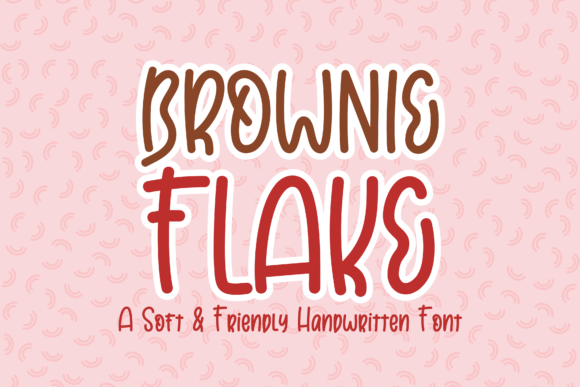
Brownie Flake Font: The Perfect Handwritten Font for Your Creative Projects
Are you looking for a friendly and versatile handwritten font to elevate your creative projects? Look no further than Brownie Flake Font! This charming font is perfect for social media, Goodnotes, digital planning, and more. In this article, we’ll dive into the features and benefits of Brownie Flake Font and explore how you can use it to take your branding, crafts, invitations, and other creative projects to the next level.
What is Brownie Flake Font?
BrownieFlake is a friendly handwritten font that’s designed to add a personal touch to your digital and print projects. It’s a carefully crafted font that features uppercase and lowercase letters, numbers, basic punctuation, and international characters. This makes it an excellent choice for a wide range of creative applications, from social media graphics and digital planning to branding, crafts, and invitations.
Key Features of Brownie Flake Font
- Handwritten style: Brownie Flake Font has a warm and inviting handwritten style that’s perfect for creating a personal connection with your audience.
- Uppercase and lowercase letters: The font includes both uppercase and lowercase letters, making it easy to create professional-looking text.
- Numbers and punctuation: The font also includes numbers, basic punctuation, and international characters, giving you everything you need to create comprehensive text.
- Versatile: Brownie Flake Font is highly versatile and can be used for a wide range of creative projects, from social media graphics to digital planning and more.
Benefits of Using Brownie Flake Font
So why choose Brownie Flake Font for your creative projects? Here are just a few benefits of using this friendly handwritten font:
- Adds a personal touch: Brownie Flake Font’s handwritten style adds a warm and personal touch to your projects, helping you connect with your audience.
- Easy to read: The font is highly legible, making it easy for your audience to read and understand your text.
- Versatile: Brownie Flake Font can be used for a wide range of creative projects, from social media graphics to digital planning and more.
- Time-saving: With Brownie Flake Font, you can create professional-looking text quickly and easily, saving you time and effort.
How to Use Brownie Flake Font
Now that we’ve explored the features and benefits of Brownie Flake Font, let’s dive into how you can use it in your creative projects. Here are a few ideas to get you started:
- Social media graphics: Use Brownie Flake Font to create eye-catching social media graphics that showcase your brand’s personality.
- Digital planning: Add a personal touch to your digital planning with Brownie Flake Font’s handwritten style.
- Branding: Use Brownie Flake Font to create a consistent brand voice and visual identity across all your marketing materials.
- Crafts: Add a personal touch to your crafts, such as handmade cards and gift tags, with Brownie Flake Font.
- Invitations: Use Brownie Flake Font to create beautiful and inviting invitations for special occasions.
Tips for Getting the Most Out of Brownie Flake Font
Here are a few tips for getting the most out of Brownie Flake Font:
- Experiment with different colors: Try pairing Brownie Flake Font with different colors to create a unique and eye-catching look.
- Mix and match fonts: Combine Brownie Flake Font with other fonts to create a visually appealing and cohesive look.
- Use it consistently: Use Brownie Flake Font consistently across all your marketing materials to create a strong brand identity.
Brownie Flake Font is a friendly and versatile handwritten font that’s perfect for a wide range of creative projects. With its warm and inviting style, it’s an excellent choice for adding a personal touch to your branding, crafts, invitations, and more. Whether you’re a seasoned designer or just starting out, Brownie Flake Font is a great addition to your font library.